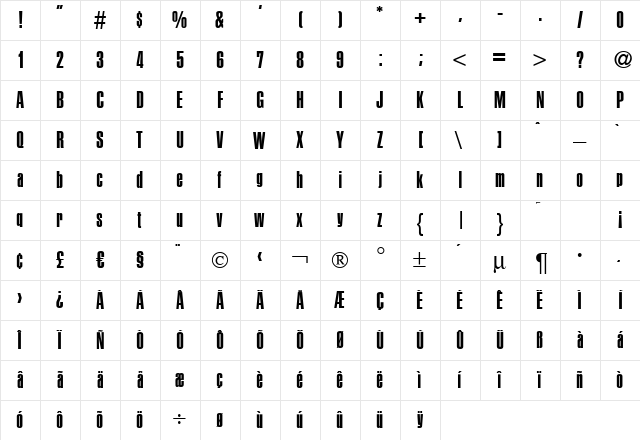
P700-Sans Regular
Design Context for P700-Sans Typeface
P700-Sans offers clean, dependable letterforms without strong stylistic allegiance, making it a practical choice for designers who need flexibility.